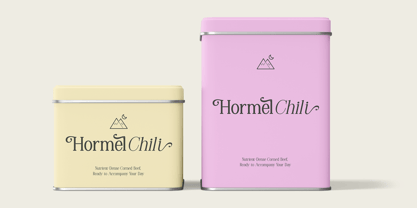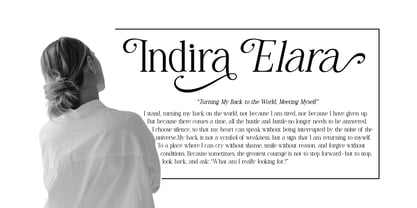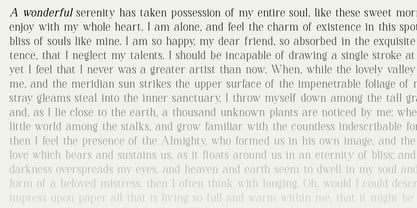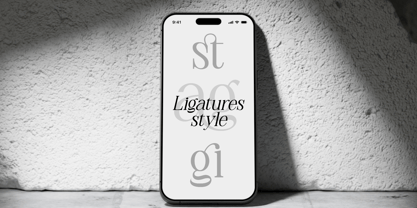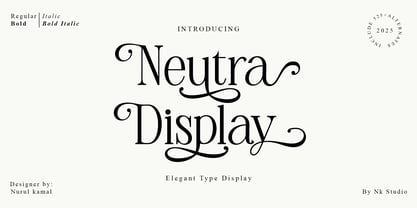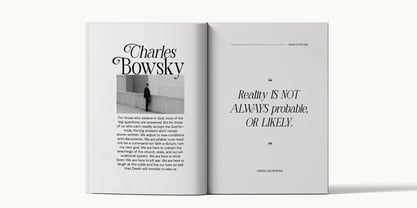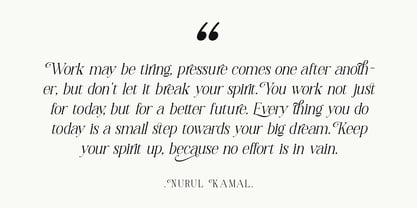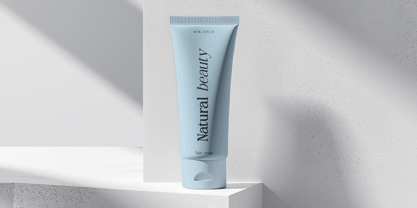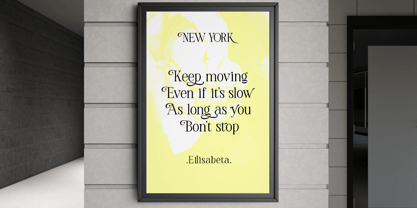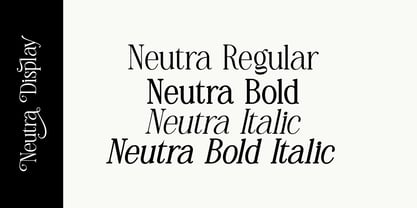
Neutra Display
Neutra Display Serif is a modern vintage serif font wrapped in a modern and classy style, complete with access to your OpenType features to access a wide selection of alternate letters and ligatures, choose your favorite letters from a variety of upper and lower case for a luxurious and elegant look.
A unique and fun serif series, this font is perfect for branding projects, logo design, apparel branding, packaging, magazine headlines, advertisements, t-shirts, postcards and more.
Available in 4 different style variants
Features
• All upper and lower case
• Numbers & Symbols
• Alternate and Ligatures